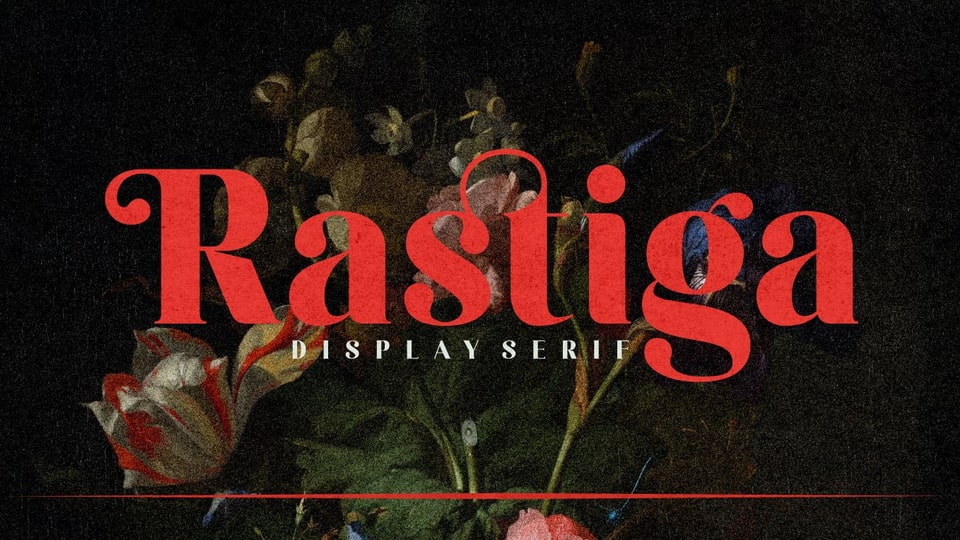
Jan 30, 2025SerifRastiga Font Rastiga is a display serif typeface that looks bold and elegant with a retro touch. With clear letter shapes that are easy to read with simple curves at the ends of the letters. Font DetailsDesigned by: GlyphStyleWebsiteLicense: Free for personal use Download Rastiga FontFile size: 22.17 KBCreated: February 16, 2025Updated: February 16, 2025 Download Explore similar fonts Softique Font Family Rosser Font The Genium Font Magite Font Michty Font Gohdtail Font # Antiqua# Beautiful# Elegant# Modern More fonts by GlyphStyleSolustion FontOdgar FontTreova FontMarkey FontBhasline FontFostone FontForgore FontGothic Font